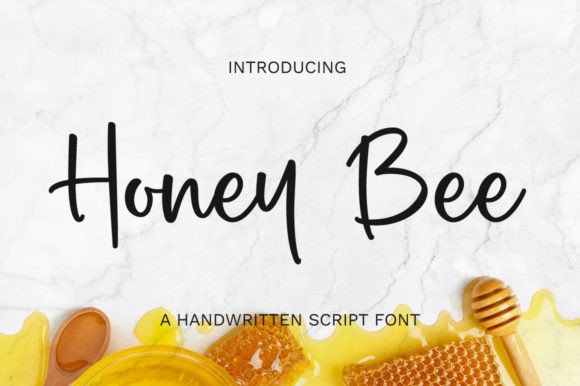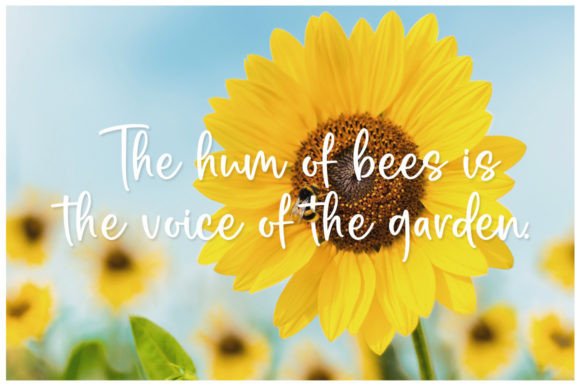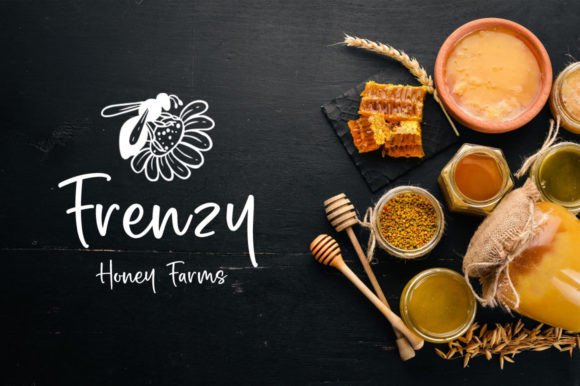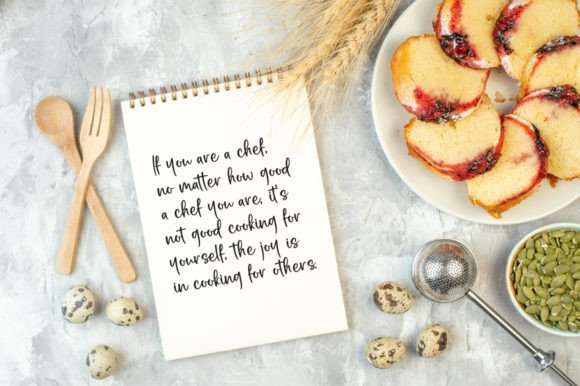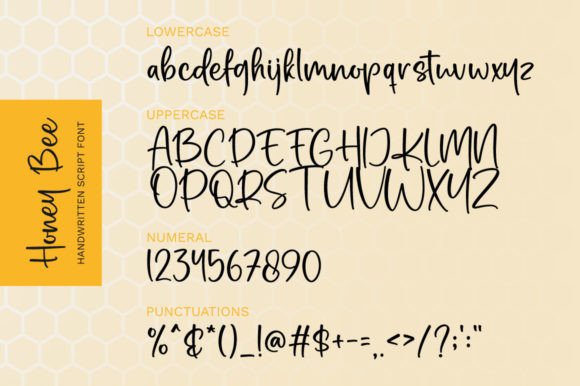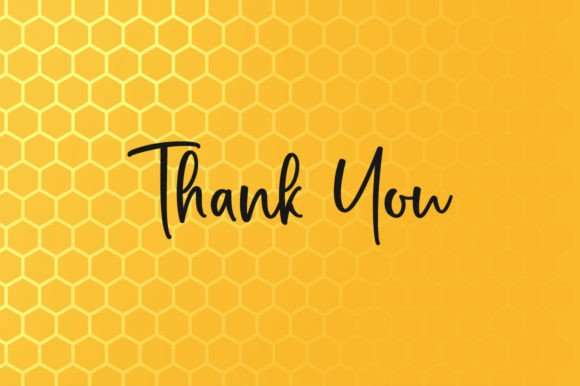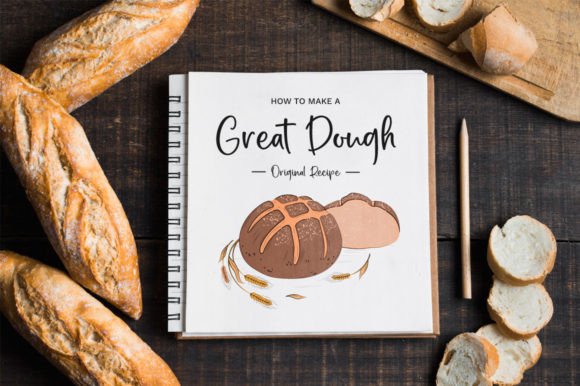
Honey Bee Font
About Honey Bee Font
**Honey Bee: A Delicate and Refined Script Font**
Introducing **Honey Bee**, a script font that exudes an aura of delicate sophistication and refined elegance. With its stylish alternates and ligatures, this font is the epitome of versatility, making it an ideal choice for a wide range of creative projects.
**Honey Bee** stands out with its graceful and intricate letterforms, capturing the essence of elegance in every stroke. The delicate curves and precise lines create a sense of artistry that elevates any design it graces.
One of the defining features of **Honey Bee** is its extensive set of alternates and ligatures. These elements provide a world of customization options, allowing you to craft unique and distinctive typography that suits your project’s aesthetic perfectly.
Whether you’re working on branding, invitations, packaging, or any other design endeavor, **Honey Bee** is your trusted companion. Its refined charm adds an extra layer of sophistication to your projects, making them truly exceptional.
In conclusion, **Honey Bee** is more than just a font; it’s a design tool that brings an unparalleled level of refinement to your creative work. Its delicate beauty and versatile alternates make it the perfect match for any project that demands sophistication and elegance. Choose **Honey Bee** to infuse your designs with timeless grace and make a lasting impression.